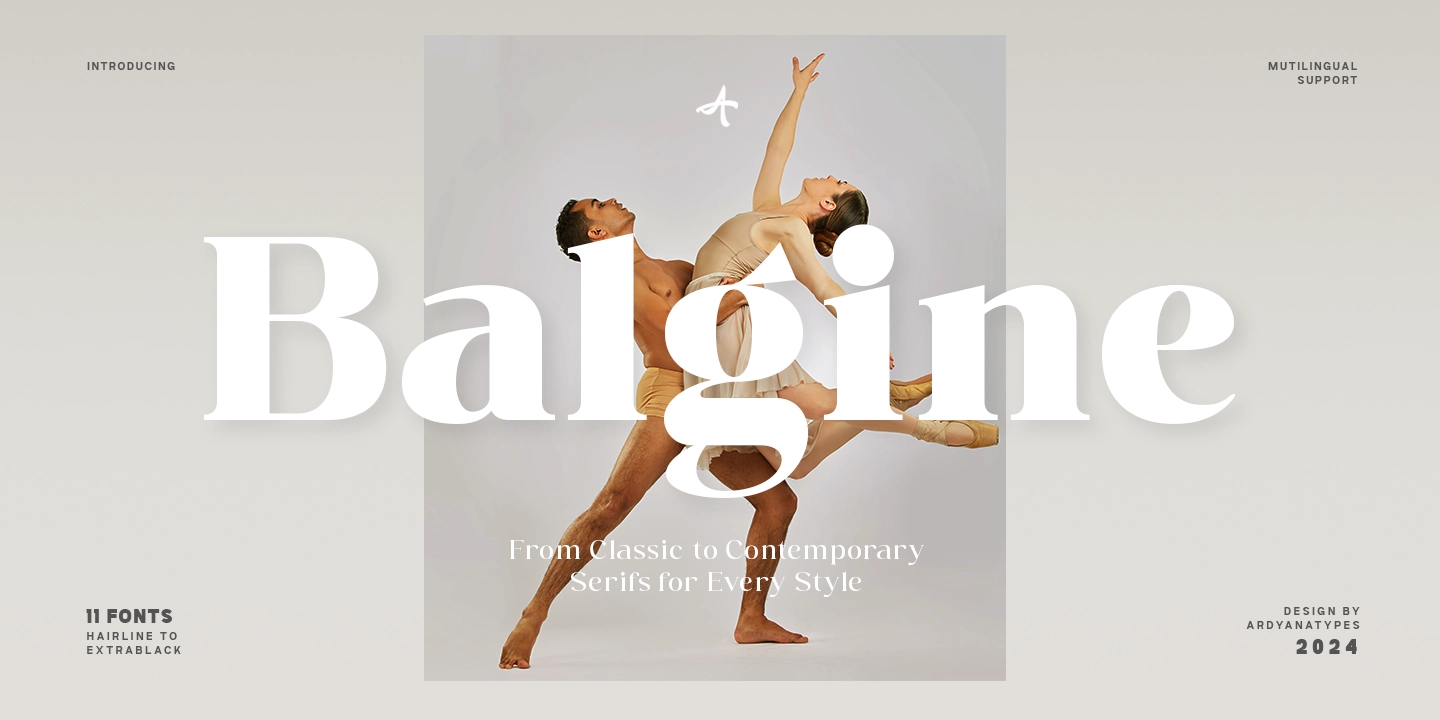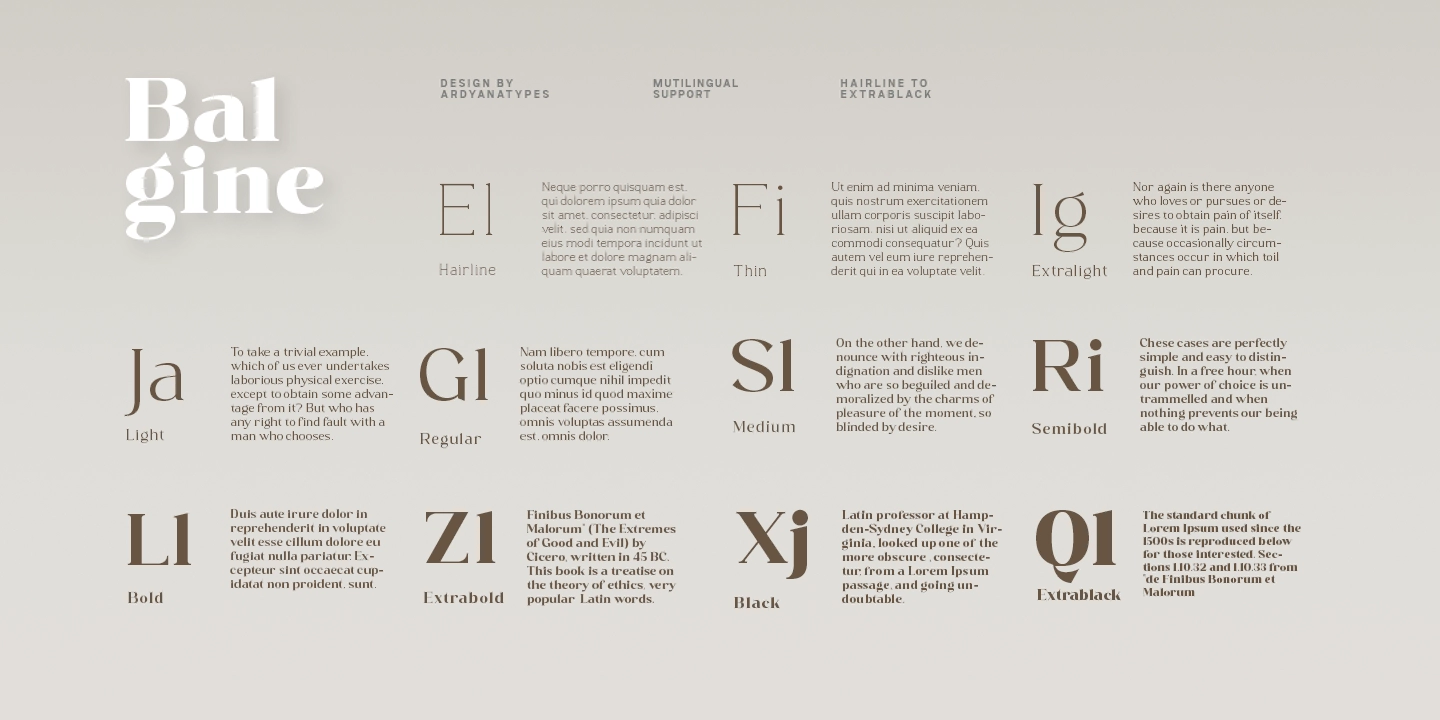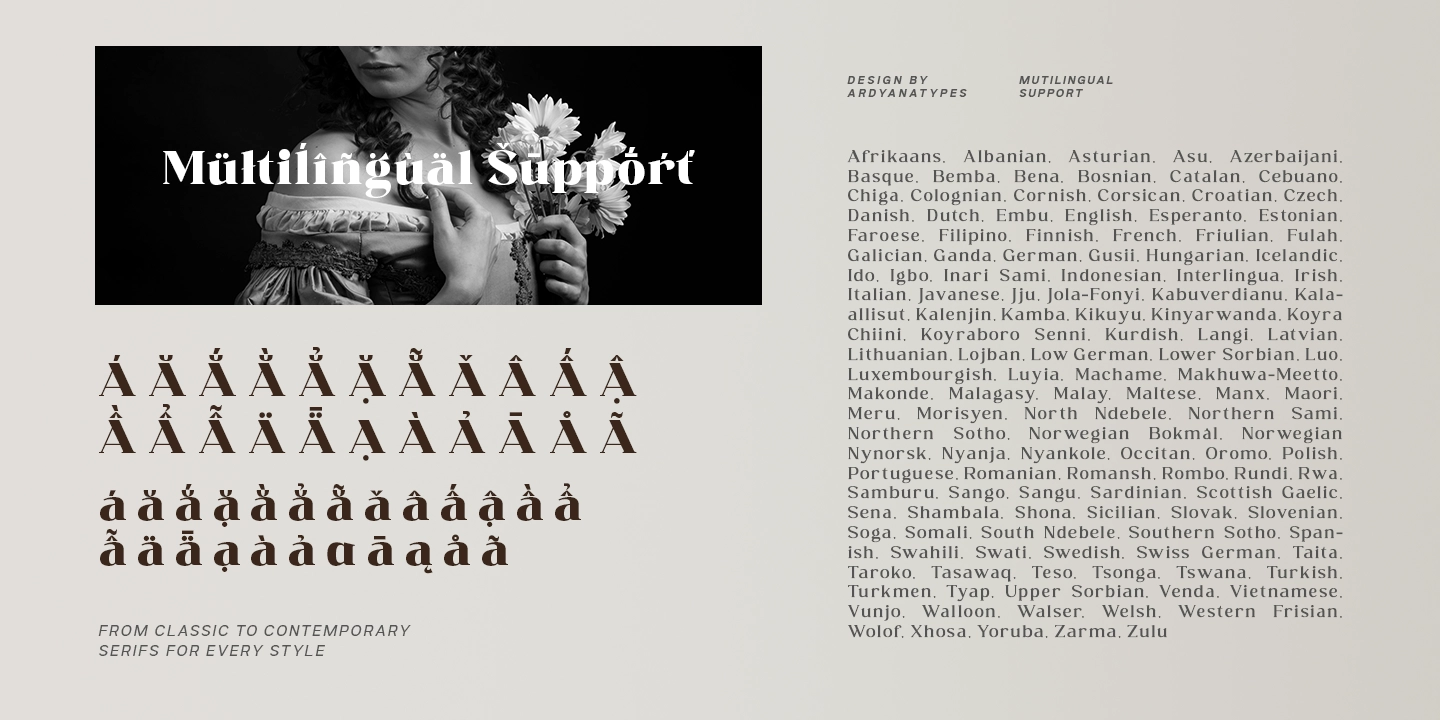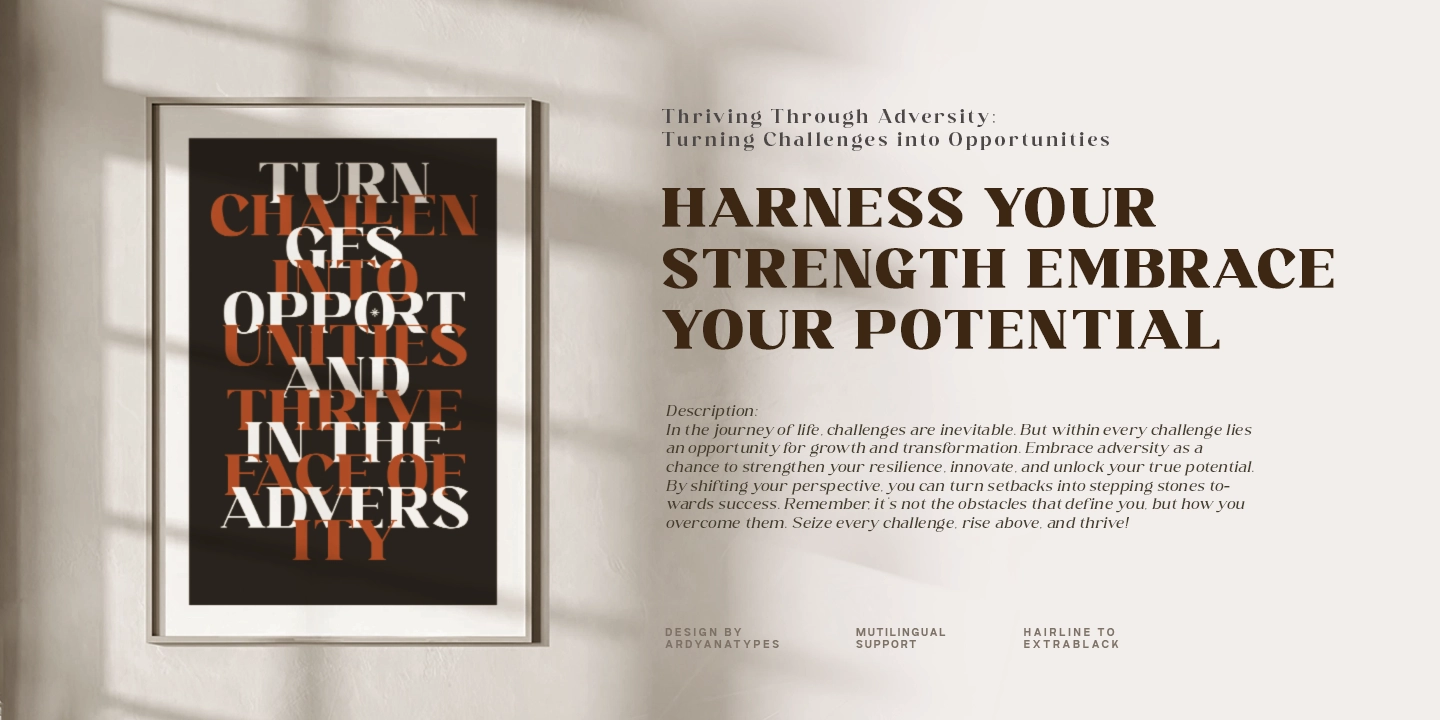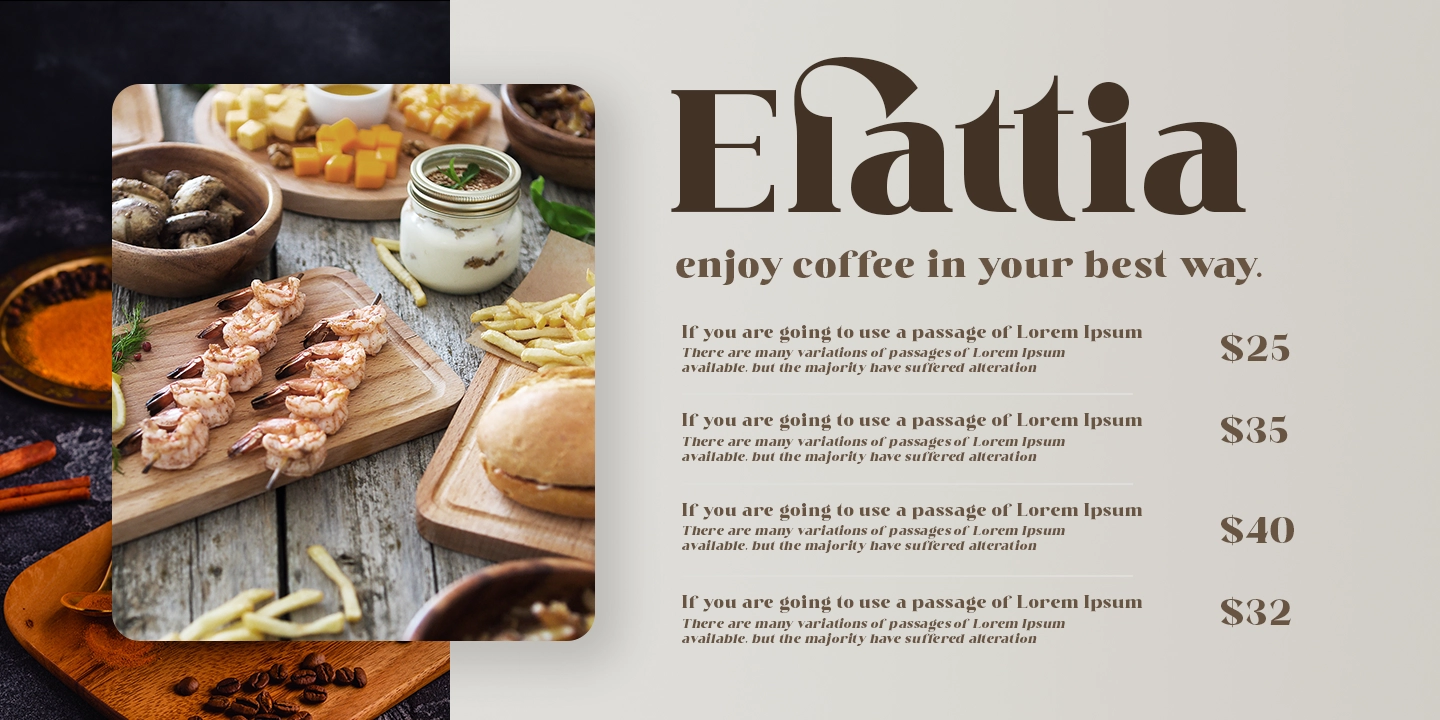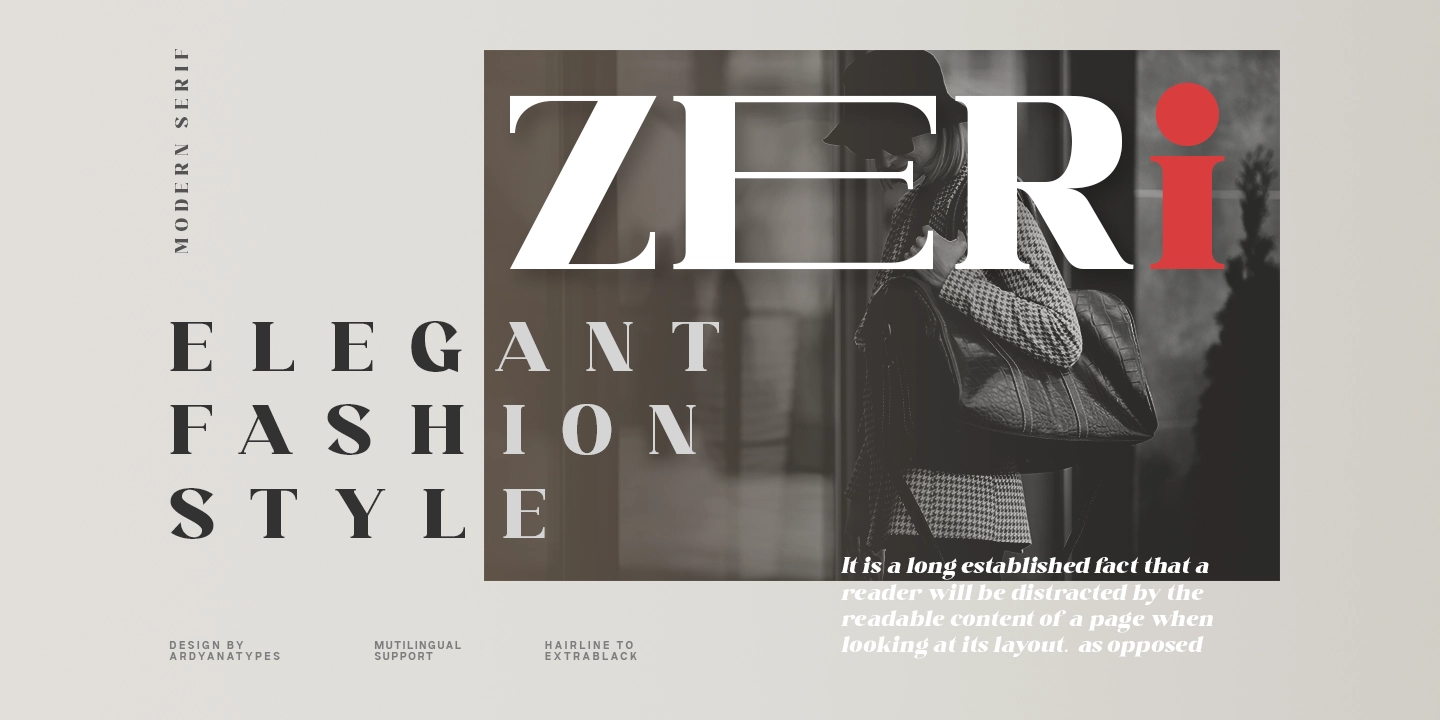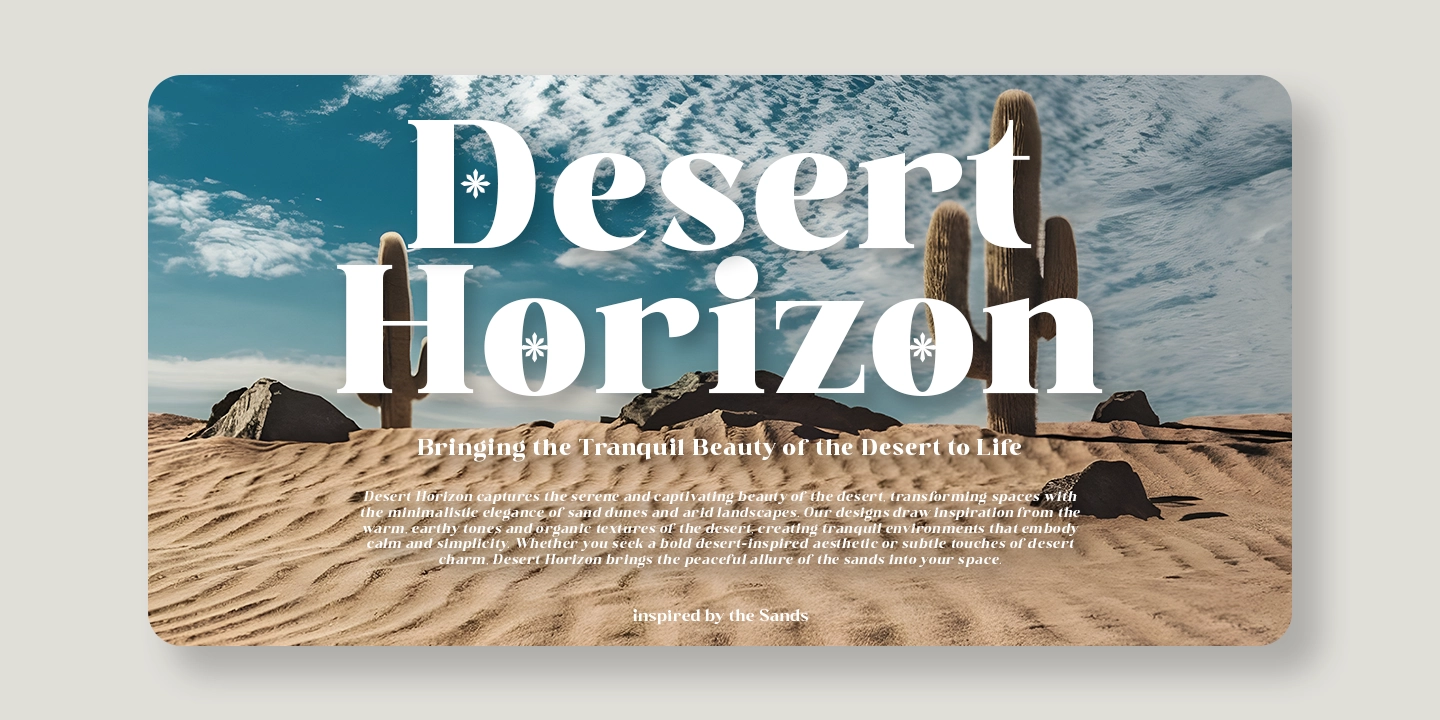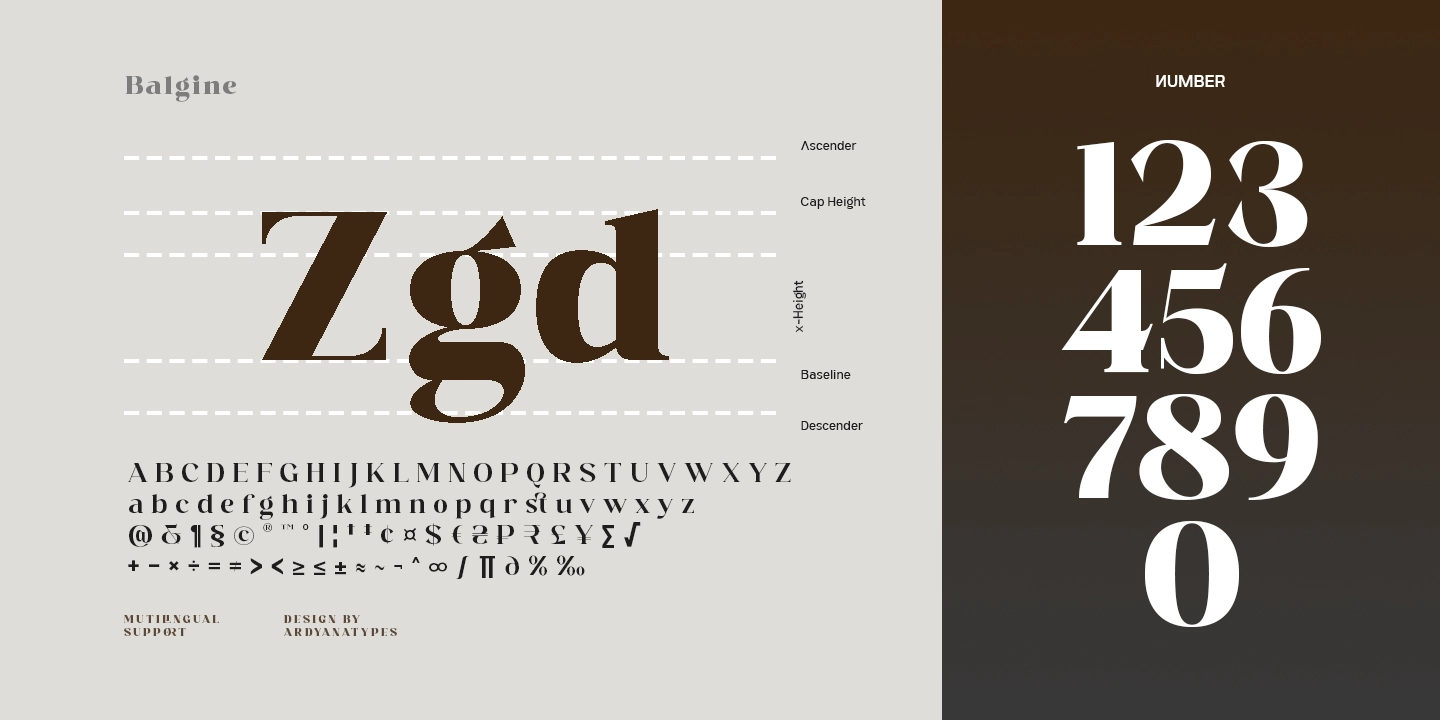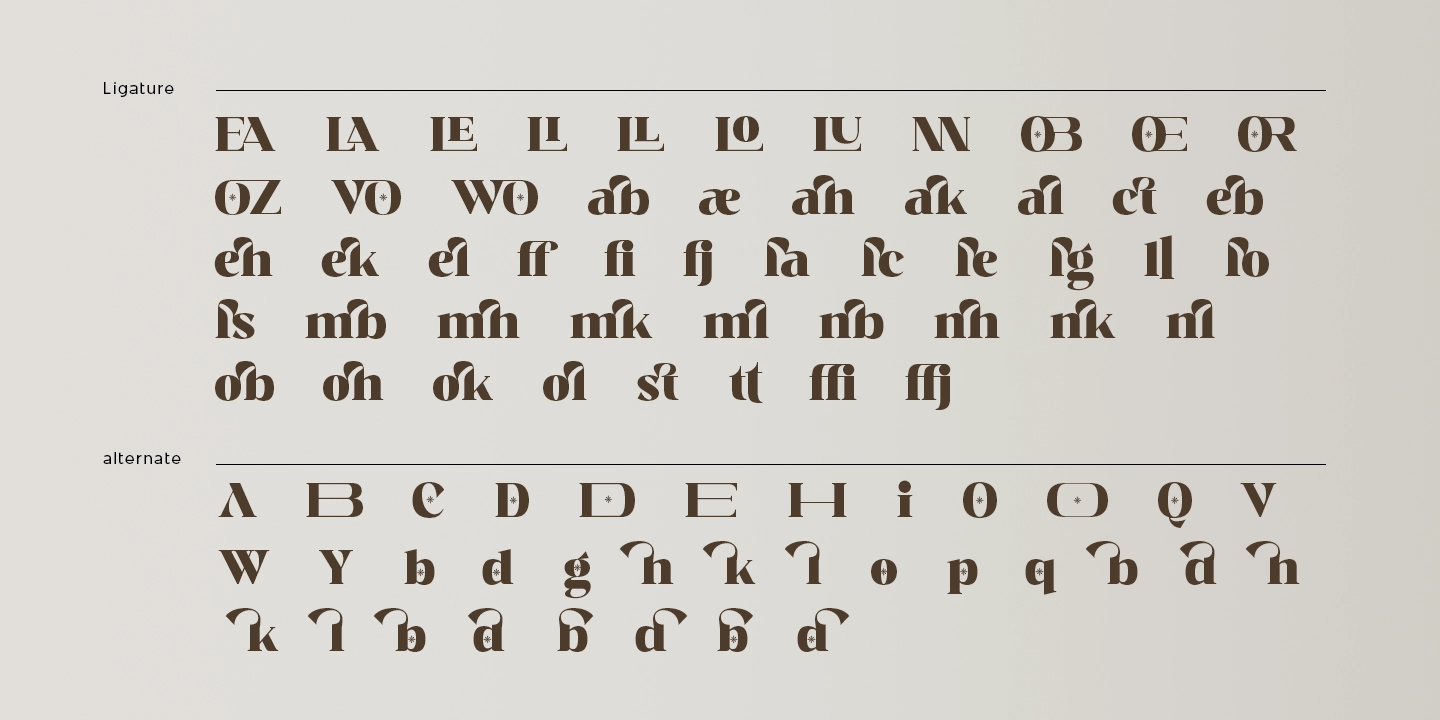
Balgine
11 Styles
Balgine is a serif font crafted with great precision and inspired by modern fonts of today. Equipped with full OpenType features, Balgine offers maximum flexibility for designers to create professional and creative works. Its elegant yet adaptable form makes it perfect for various design projects, from posters, movie titles, book designs, branding, to large-scale projects.
Balgine supports multiple languages, allowing it to be used worldwide, adding global value and professionalism to any project. With its dynamic and versatile look, Balgine is ready to elevate your design’s appearance to the next level.
• ffi ffi
• ffj ffj
• EA EA
• LA LA
• LE LE
• LI LI
• LL LL
• LO LO
• LU LU
• NN NN
• OB OB
• OE OE
• OR OR
• OZ OZ
• VO VO
• WO WO
• ab ab
• ae ae
• ah ah
• ak ak
• al al
• eb eb
• eh eh
• ek ek
• el el
• fj fj
• la la
• lc lc
• le le
• lg lg
• lo lo
• ls ls
• mb mb
• mh mh
• mk mk
• ml ml
• nb nb
• nh nh
• nk nk
• nl nl
• ob ob
• oh oh
• ok ok
• ol ol